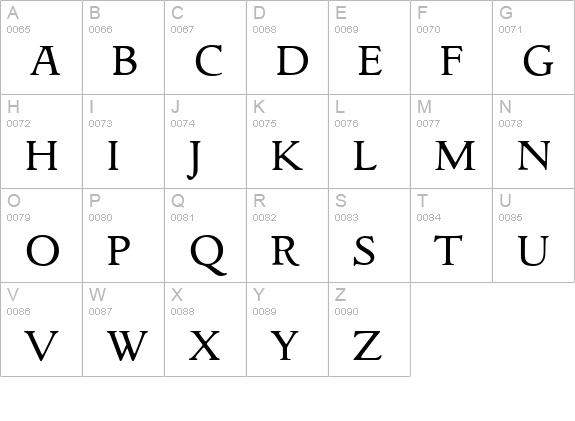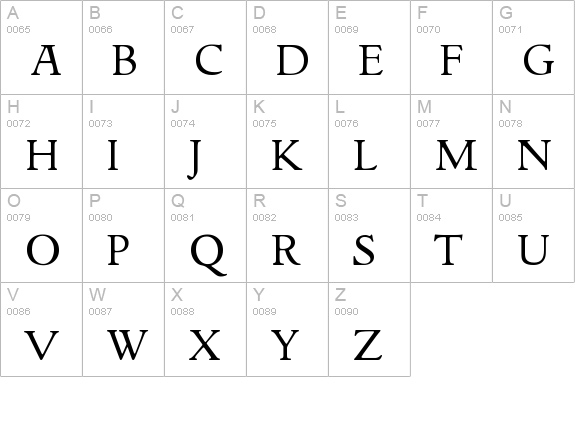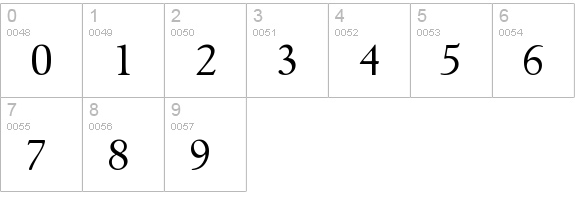
GouditaSerial-Regular is the standard, neutral variant in the GouditaSerial typeface family \xE2\x80\x94 well suited to general body text, paragraphs, and standard typographic work.
GouditaSerial-Regular font is a versatile and modern typeface that combines elegance with readability. Its clean lines and balanced proportions make it suitable for a wide range of design projects, from branding to editorial design. The font features a unique blend of geometric and humanistic elements, giving it a distinctive and contemporary look. What makes GouditaSerial-Regular font even more appealing is that it is available for free download at FontsMarket.com. This means that designers and creatives can easily access this high-quality typeface without any cost, making it a valuable addition to their font library. Whether you are working on a logo, poster, website, or any other design project, GouditaSerial-Regular font is sure to elevate your work with its stylish and professional appearance.